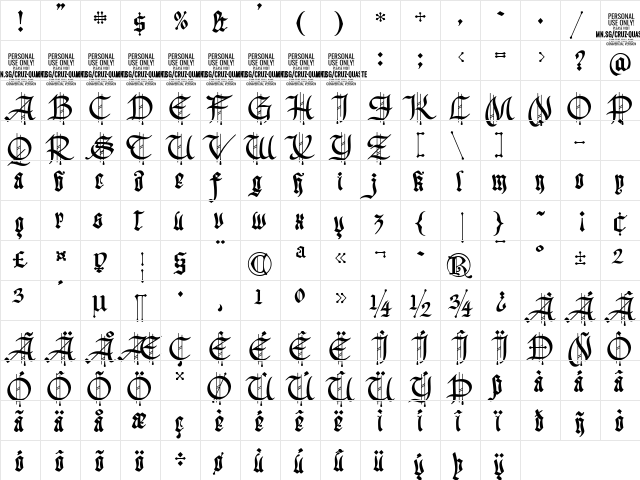
Cruz Quaste PERSONAL USE ONLY Regular
| Foundry | Mans Greback |
| Designer | Mans Greback |
Design Context for Cruz Quaste PERSONAL USE ONLY Typeface
Cruz Quaste PERSONAL USE ONLY is a composed and adaptable typeface that performs quietly and consistently across a wide range of design contexts.